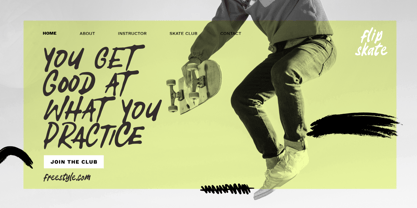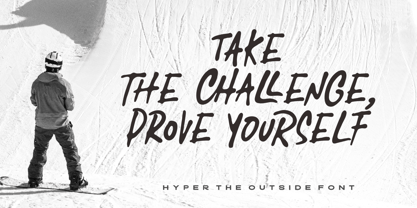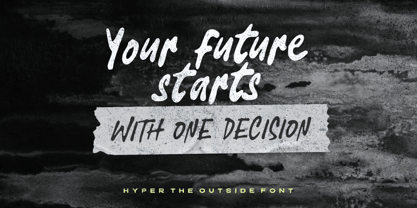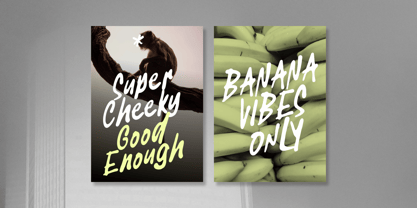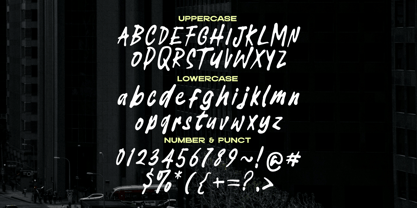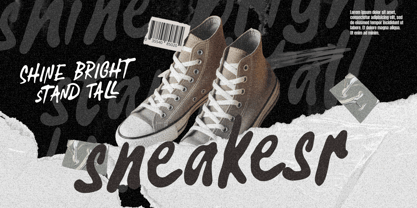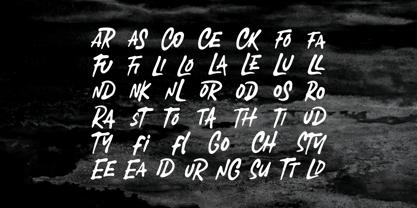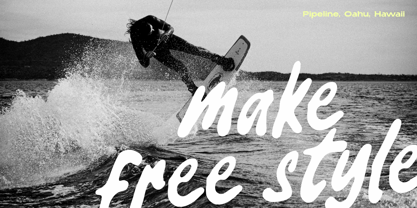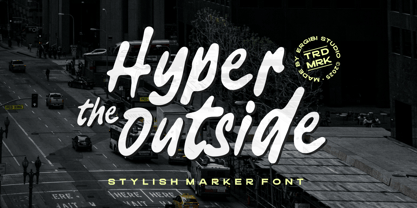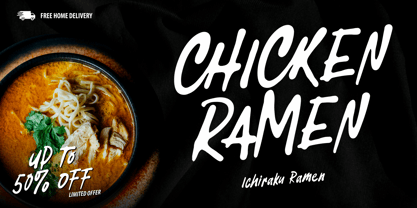
Hyper Outside
by Ergibi Studio
The Hyper Outside Font Family was designed by Riyadh Rahman and published by Ergibi Studio. Hyper Outside contains 1 styles. More about this family
Hyper Outside is a high-energy display font bursting with bold strokes and raw character. Crafted entirely in uppercase, it radiates fearless urban attitude and a sense of motion in every letter. Perfect for streetwear branding, posters, album covers, quotes, product packaging, or any design that demands a bold, street-inspired aesthetic. If there is a problem, question, or anything about my fonts, don't hesitate to ask! Ergibi Studio